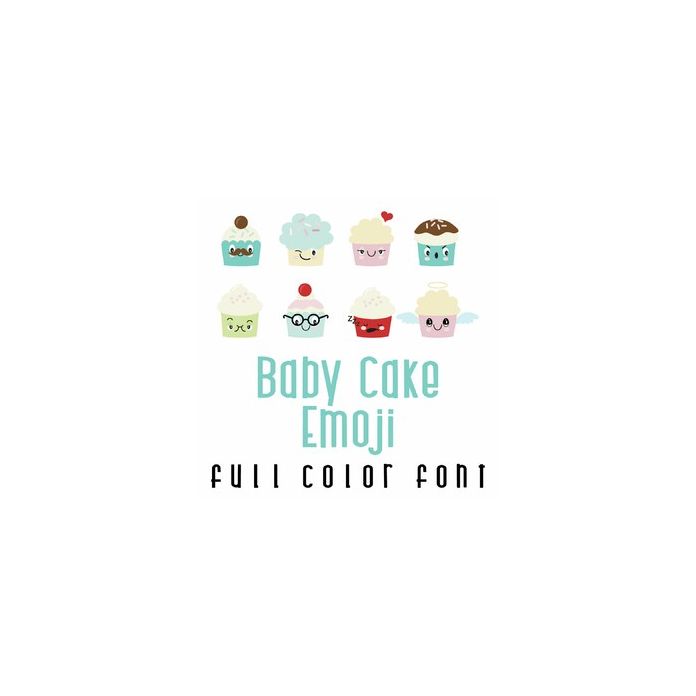
This adorable full-color doodlebat font features 26 emoticon cupcakes. Perfect for cards, crafts, gifts, decor, scrapbook pages, planner stickers, and more!